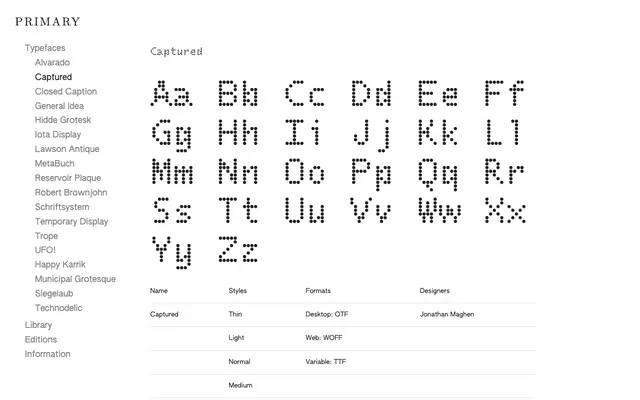
Captured
A variable-weight, fixed-width typeface by Jonathan Maghen drawing on IBM's 1960s credit card capture technology as its conceptual and formal starting point.
Inspired by the imprint technology developed by IBM for credit card capture in the 1960s, the typeface carries a retro-digital rigidity softened by five weights running from Thin to Bold via a variable TTF. Its 234-glyph set covers basic Latin, lining and old style figures, ligatures and an extensive range of alternates. Available across desktop, web and variable formats, with free use available for self-initiated, non-profit and cultural projects.
Captured is explicitly described as a fixed-width typeface, making it monospaced. Its design inspiration from IBM credit card capture technology and its extensive alternates give it a display character within that fixed-width framework.